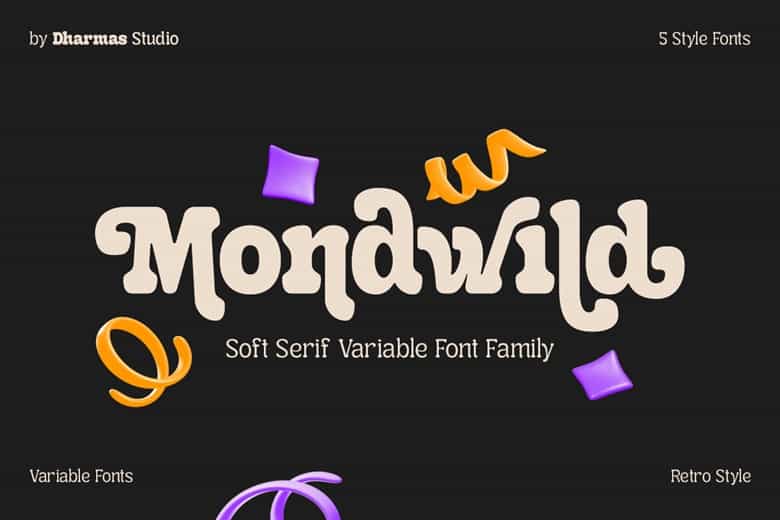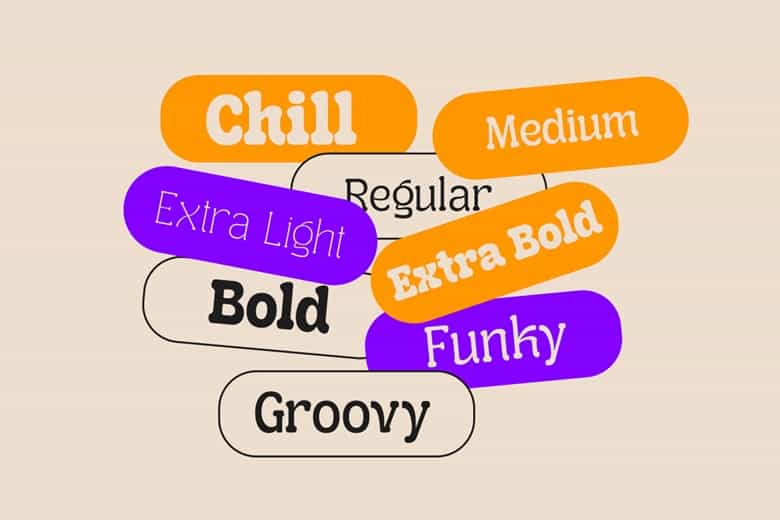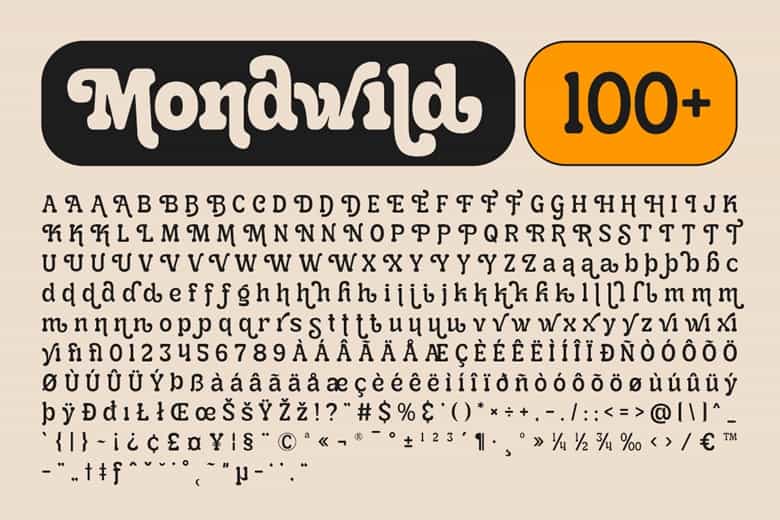
Discover Monwild Font, part of the Serif Retro collection—a versatile and unique font perfect for adding a personal touch to your projects. Download it for free and enjoy crafting designs with style, from invitations to social media posts. This font is available exclusively for personal use, giving you the freedom to create without limits. Unlock your creativity with Monwild Font today!
Mondwild is a modern retro serif font that draws very much on tradition but, at the same time, looks to the future, therefore, being an ideal font for today’s projects. Built up from different ascendancies in expressive styles of every period with a trendy taste, Mondwild provides warm and vivacious energy’s into your projects. Their smooth but uncluttered shapes and inherent beat make it suitable for many tasks.